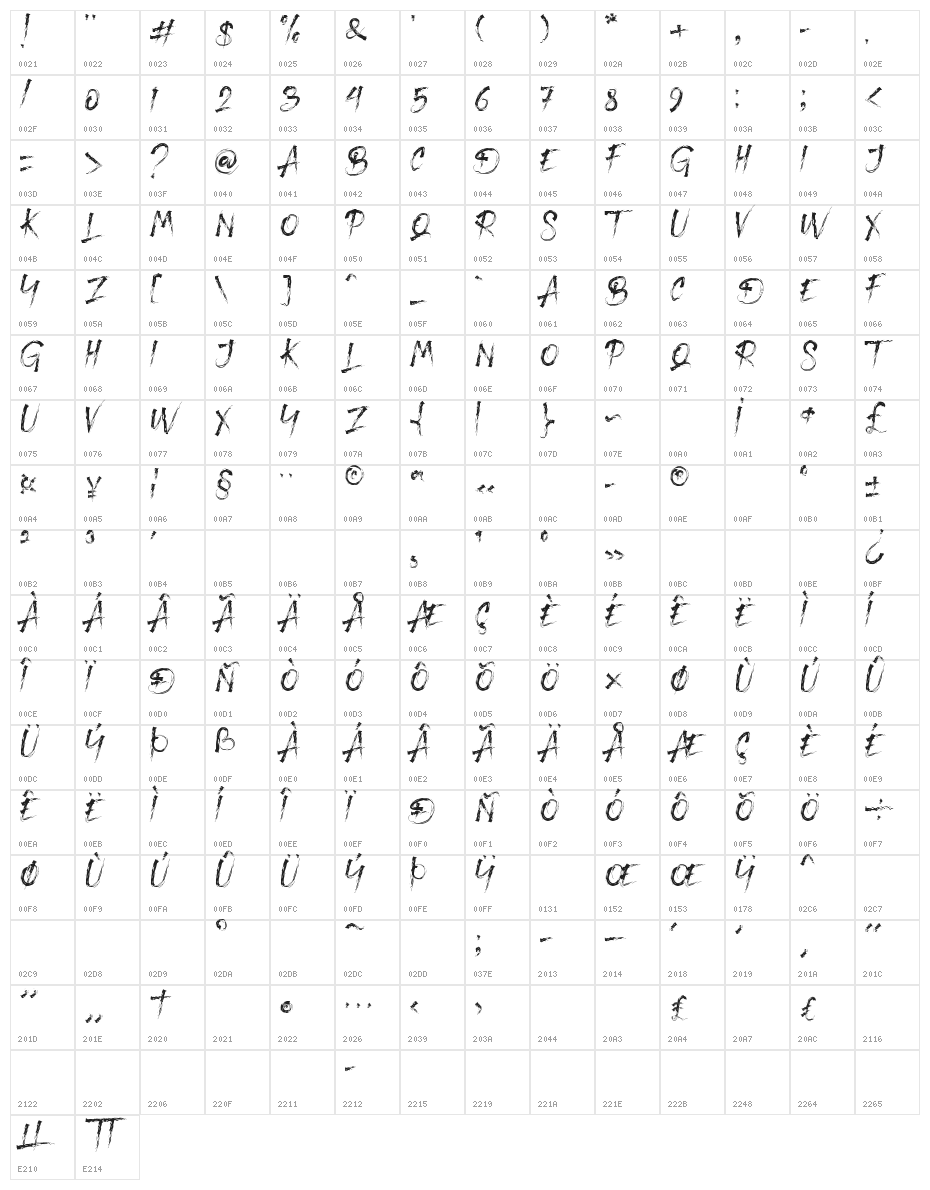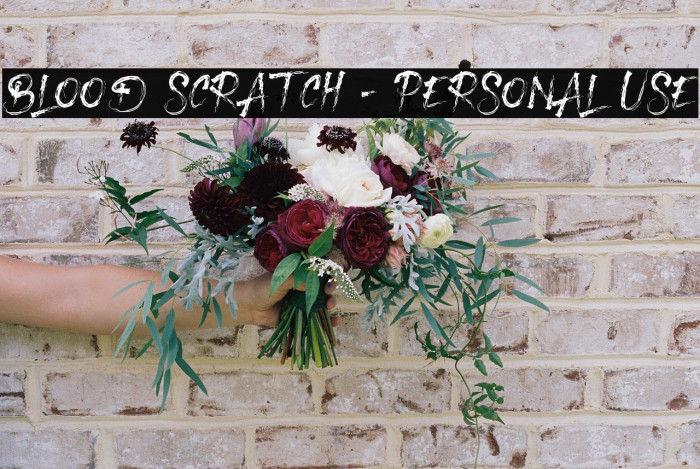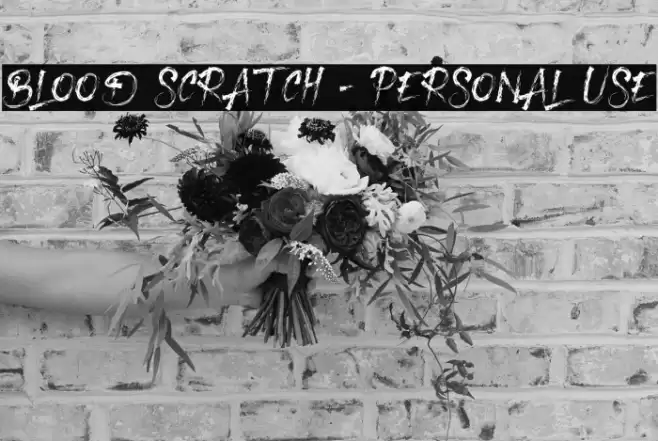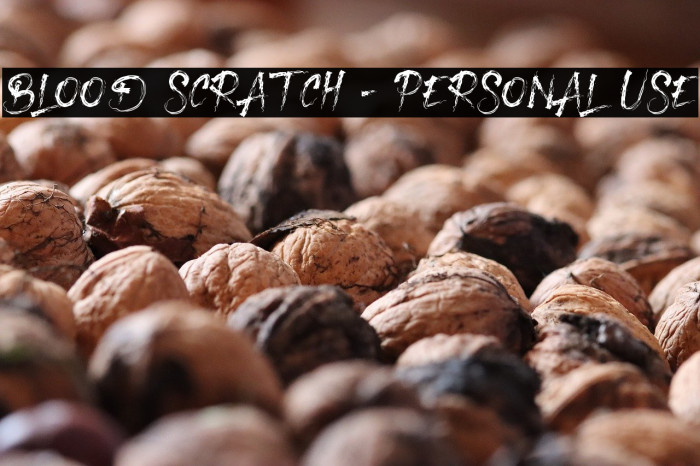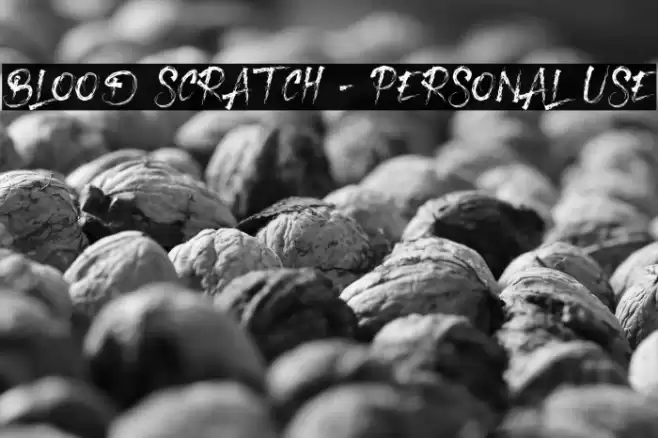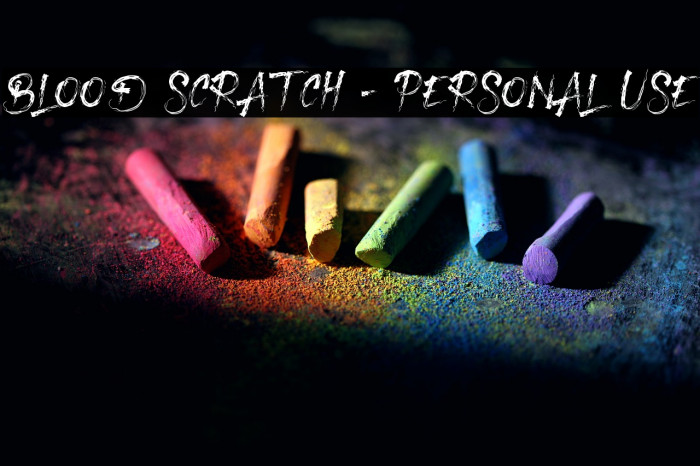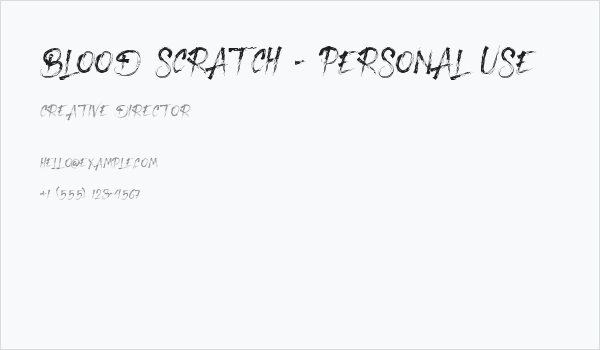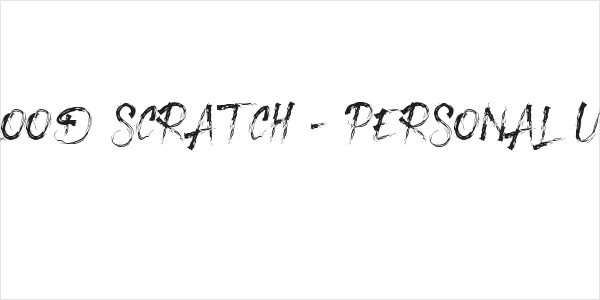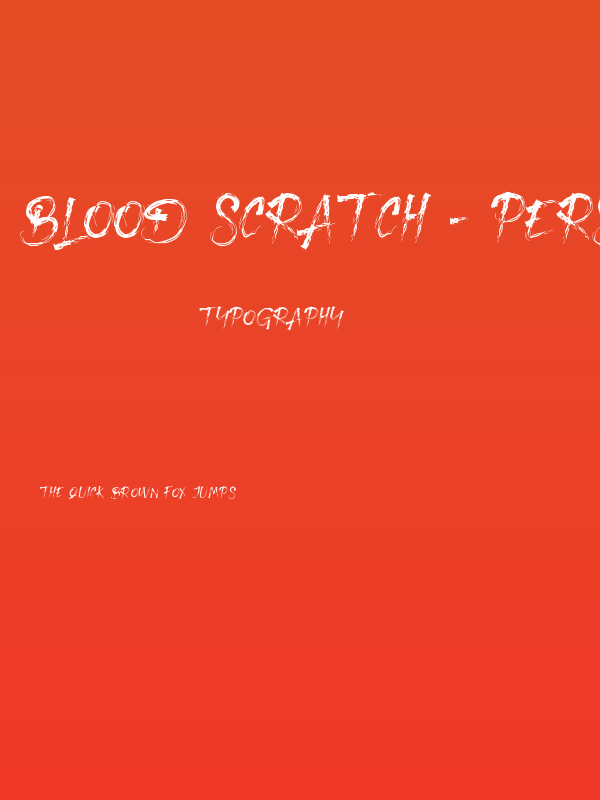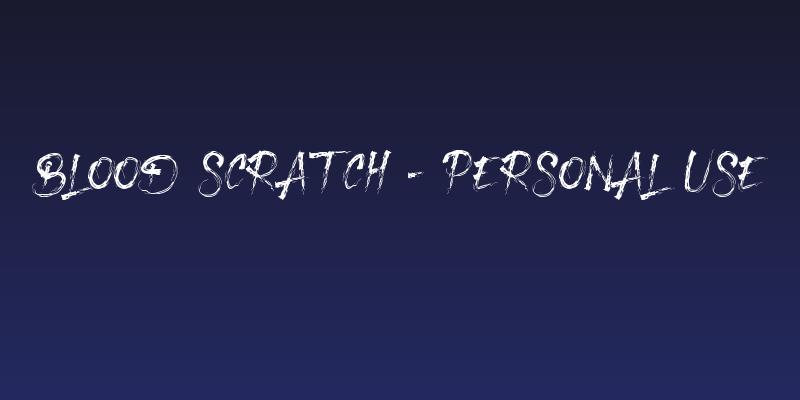
Blood Scratch - Personal Use Font
Blood Scratch - Personal Use Description
This font exudes a raw, edgy aesthetic, characterized by its jagged, scratch-like strokes that mimic the appearance of dripping ink or blood. The letters are irregular and dynamic, creating a sense of movement and intensity. The uppercase and lowercase letters maintain a consistent style, with each character appearing as if it has been hastily etched or scratched onto a surface. The numbers and special characters follow the same design ethos, adding to the overall cohesive look. This font is ideal for projects that require a dramatic, horror-themed, or rebellious vibe.
| Proposed Projects | Perfect for horror movie posters, Halloween event flyers, edgy album covers, or any project needing a dramatic, intense look. |